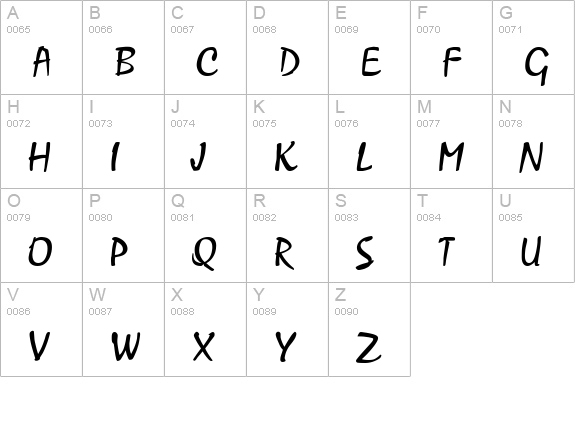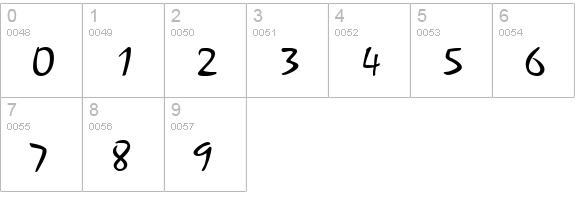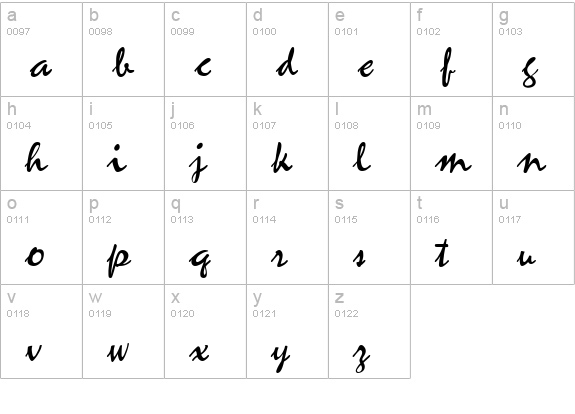
Mariah Regular Font Details
Mariah Regular is the standard, neutral variant in the Mariah typeface family \xE2\x80\x94 well suited to general body text, paragraphs, and standard typographic work.
Introducing Mariah Regular, a stunning and versatile font that effortlessly captures attention with its elegant and sophisticated design. Created with precision and finesse, this font exudes a timeless charm that will elevate any project to new heights. Featuring a perfect balance between classic and contemporary elements, Mariah Regular is a true testament to the power of typography. Its clean and smooth lines, coupled with subtle curves and graceful strokes, make it a truly captivating choice for a wide range of design applications. Whether you're working on a logo, branding materials, invitations, or even a website, Mariah Regular will add a touch of refinement and professionalism to your work. Its legibility and readability make it ideal for both headlines and body text, ensuring that your message is conveyed with utmost clarity and style. What sets Mariah Regular apart is not just its exceptional design, but also the fact that it is available for free. That's right, this incredible font can be downloaded without any charge at FontsMarket.com. Embrace the opportunity to enhance your projects with a font that effortlessly combines beauty and functionality, all in one stunning package. With Mariah Regular, you have the freedom to explore your creativity and bring your visions to life. Its versatility knows no bounds, allowing you to effortlessly adapt it to suit any project or style. Whether you're aiming for a classic and timeless look or a modern and edgy vibe, Mariah Regular will be your trusted companion every step of the way. So why wait? Download Mariah Regular today and experience the power of this exquisite font. Let its elegance and sophistication elevate your designs to new levels of excellence. Don't miss out on this incredible opportunity to access a font that not only captivates but also empowers. Visit FontsMarket.com now and unleash your creativity with Mariah Regular – the font that is both stunning and free.